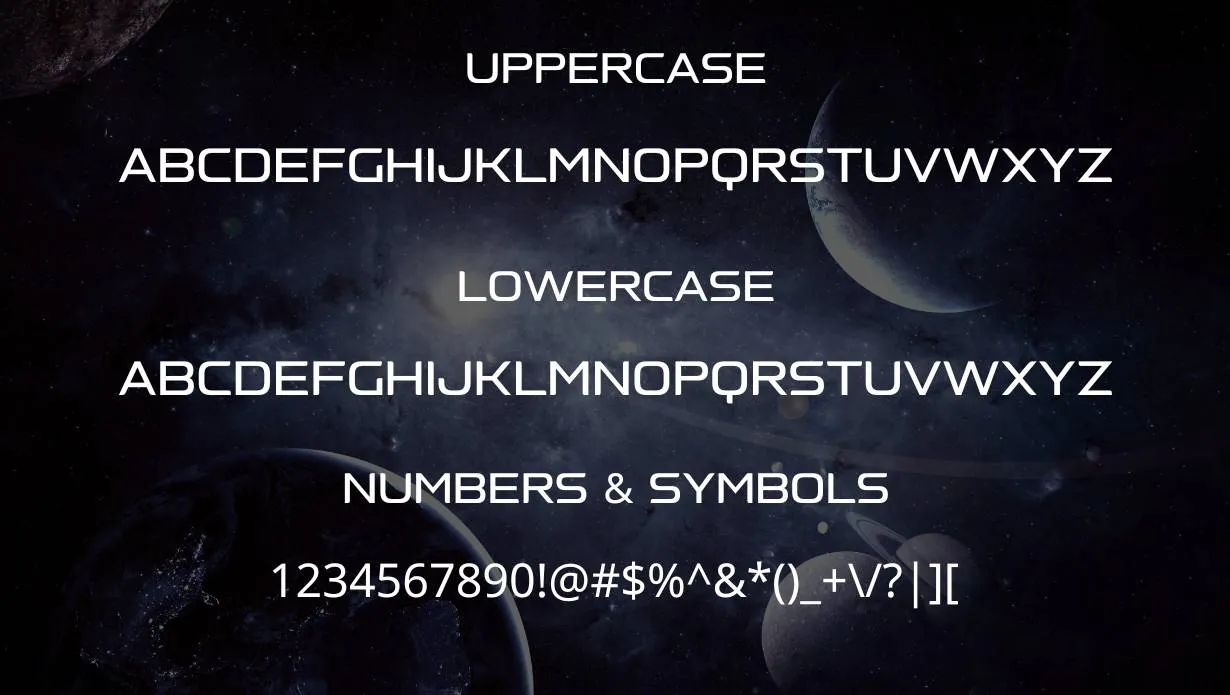
Nebulosa Font offers a modern and versatile typeface with clean lines and a straightforward design.
It’s suitable for various design applications, from branding to web design, where a contemporary and sleek appearance is needed.
Nebulosa Font Family
This font provides a minimalist and organized aesthetic to your design projects. Employ the droid sans font for its replacement or as a complementary feature.